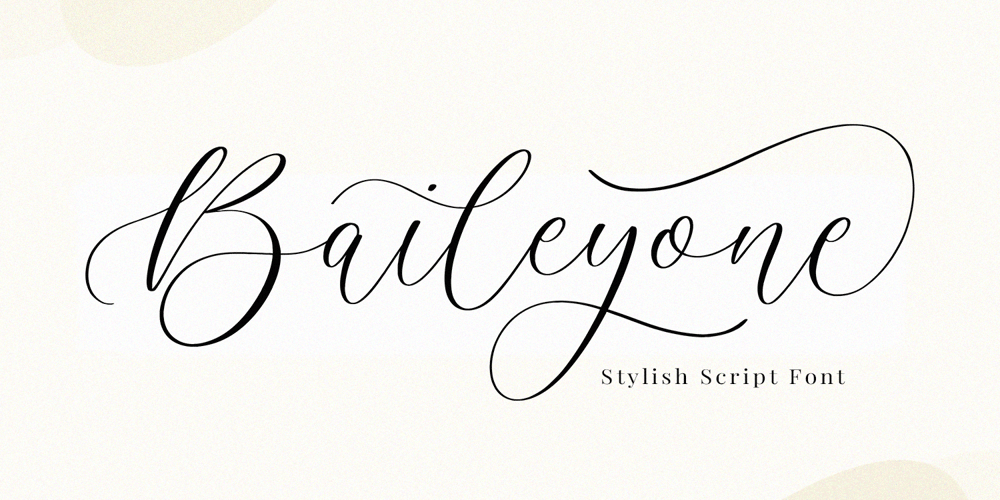
Baileyone
Baileyone font
Baileyone Font Family was designed by Wara Sigit Tri Pamungkas and published by Timurtype. Baileyone contains 1 styles and family package options. Introducing by Timur typeBaileyone, a handwritten script fontBaileyone is perfect for product packaging, branding project, magazines, social media, wedding, or just used to express words above the background.This Baileyone font includes:-Full Set of standard alphabet and punctuation & symbol-Extra set Alternate ending lowercase-multilingual support.Embelish your designs with our original fonts. Enjoy the font, thank you!